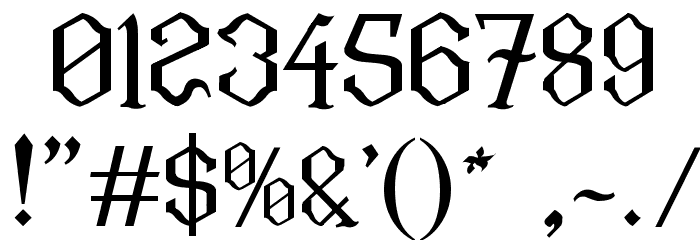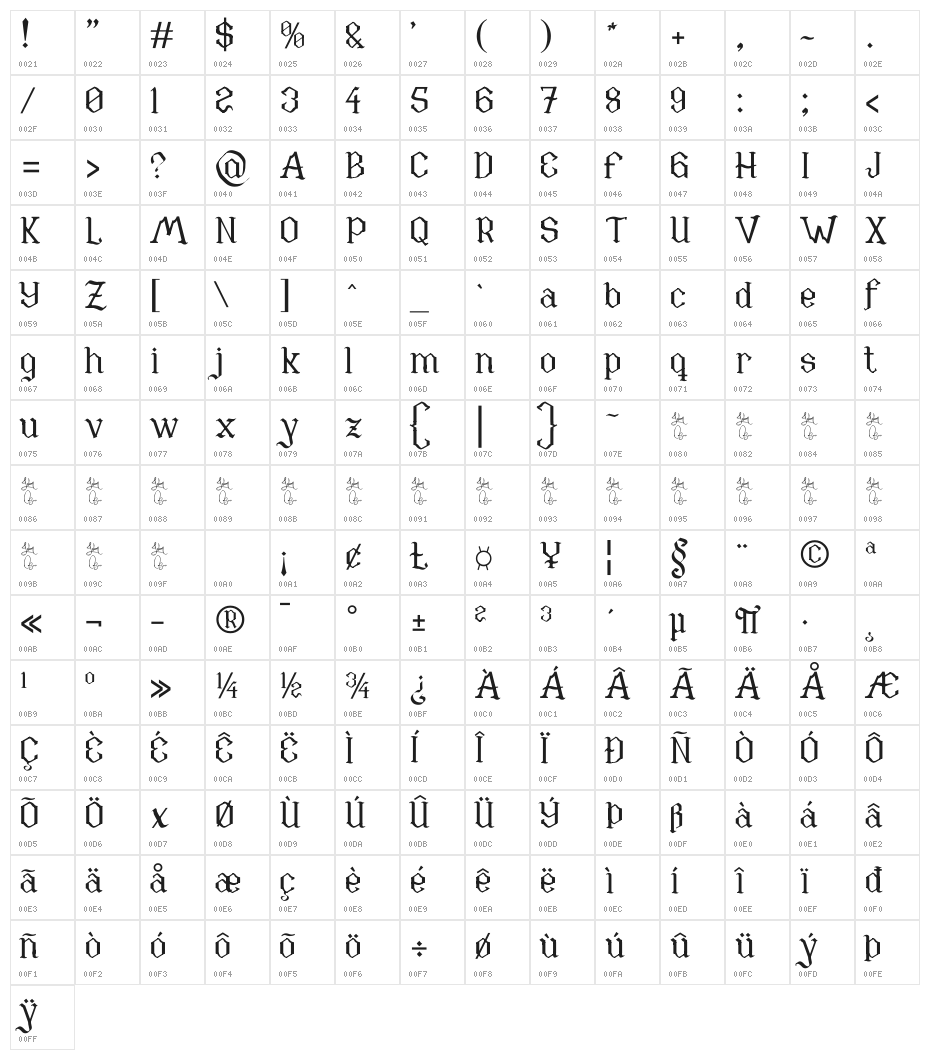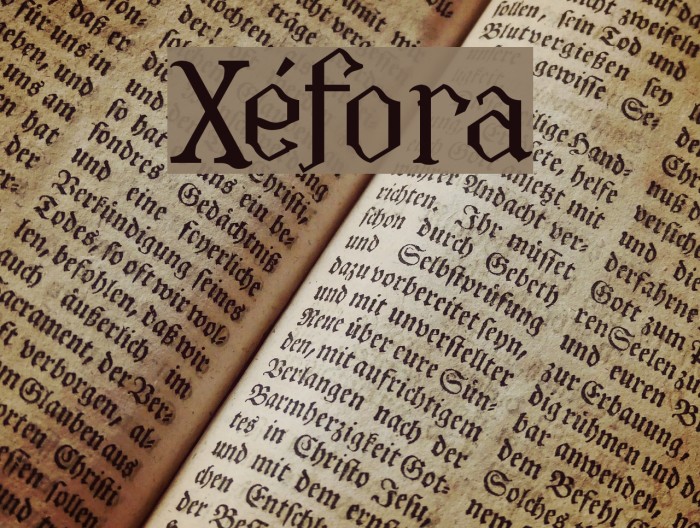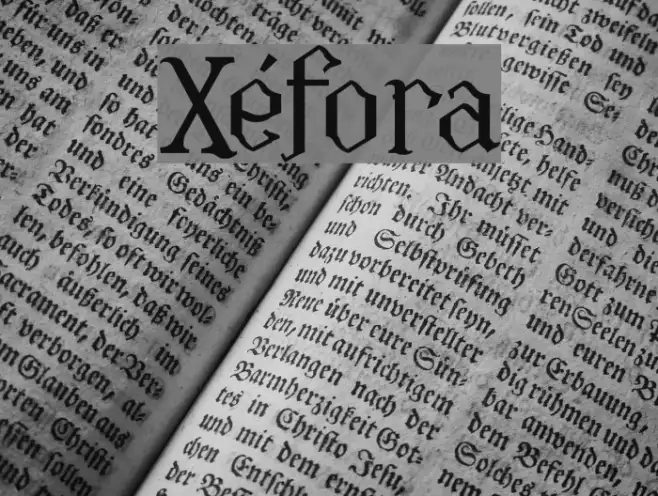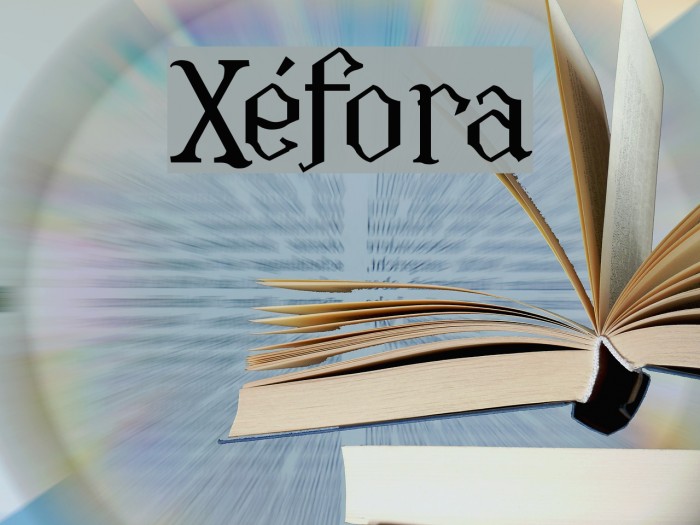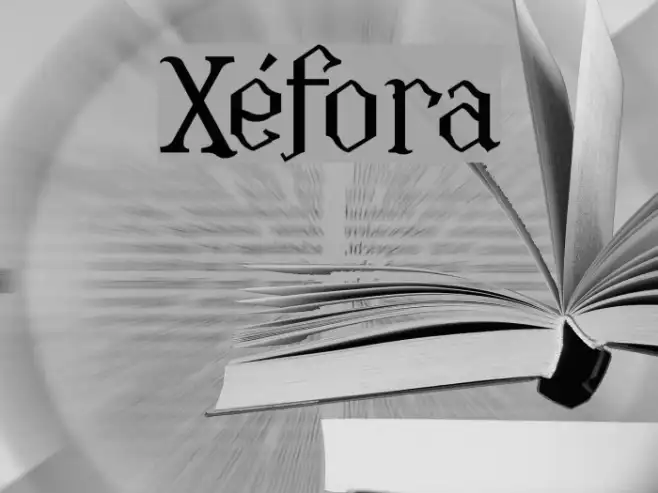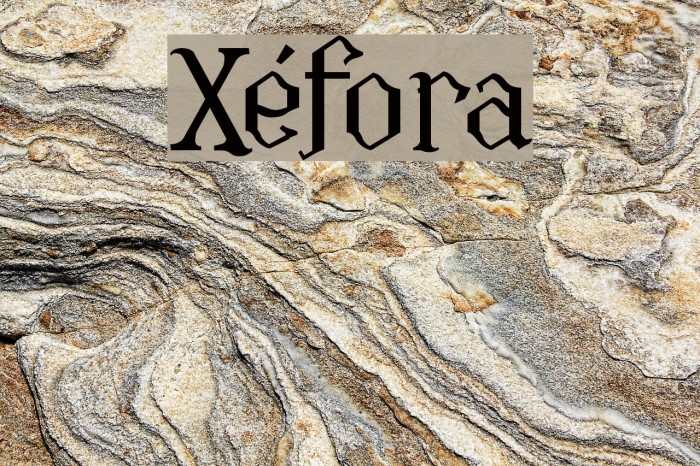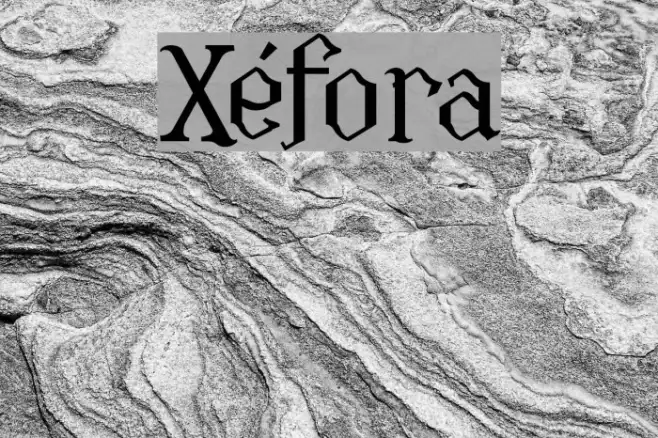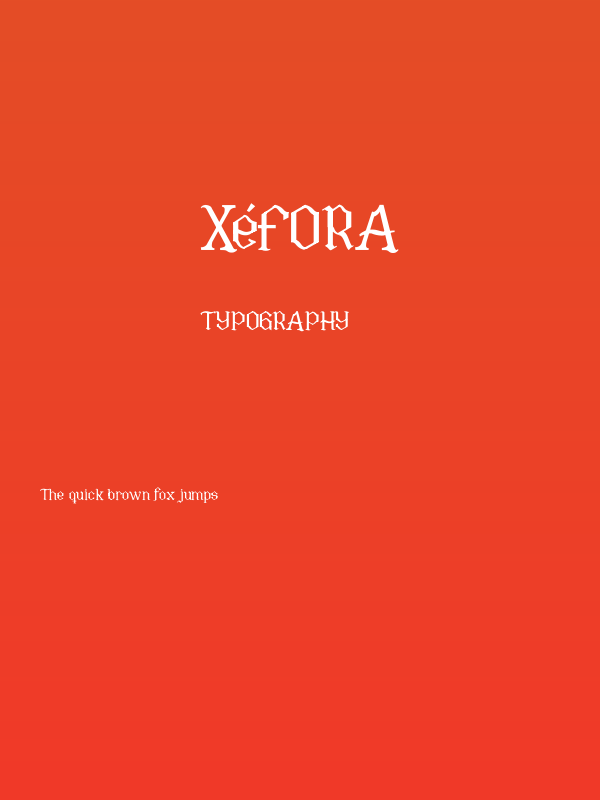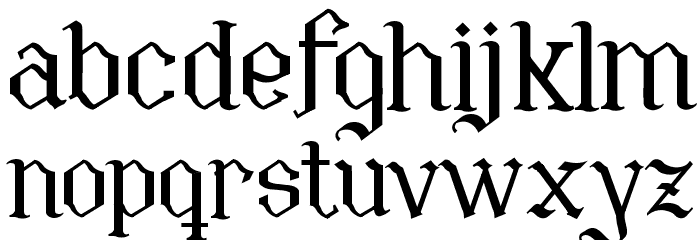
Xéfora Font
Xéfora Description
This font exhibits a bold and striking blackletter style, characterized by its sharp, angular lines and intricate detailing. The uppercase letters are particularly ornate, with pointed serifs and a medieval aesthetic that evokes a sense of tradition and history. The lowercase letters maintain the same intricate design, ensuring consistency across the typeface. The numerals are equally stylized, following the same gothic theme, which makes them stand out. Special characters are designed with the same attention to detail, making them suitable for decorative purposes. This font is ideal for projects that require a historical or formal touch, such as invitations, certificates, or branding that seeks to convey a sense of elegance and tradition.
| Use Case | Headlines, Logos, Decorative text |
| Proposed Projects | Ideal for invitations, certificates, branding, and projects requiring a historical or formal touch. |